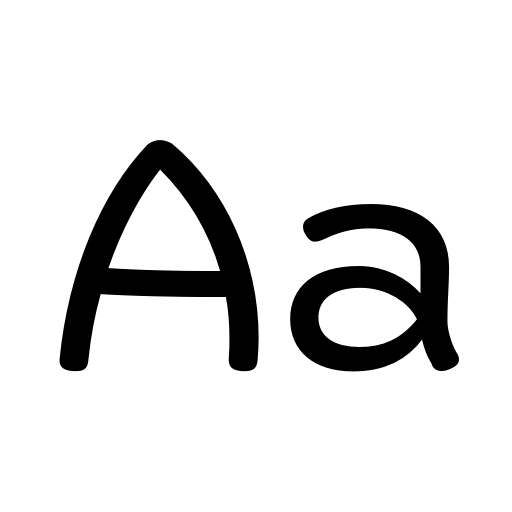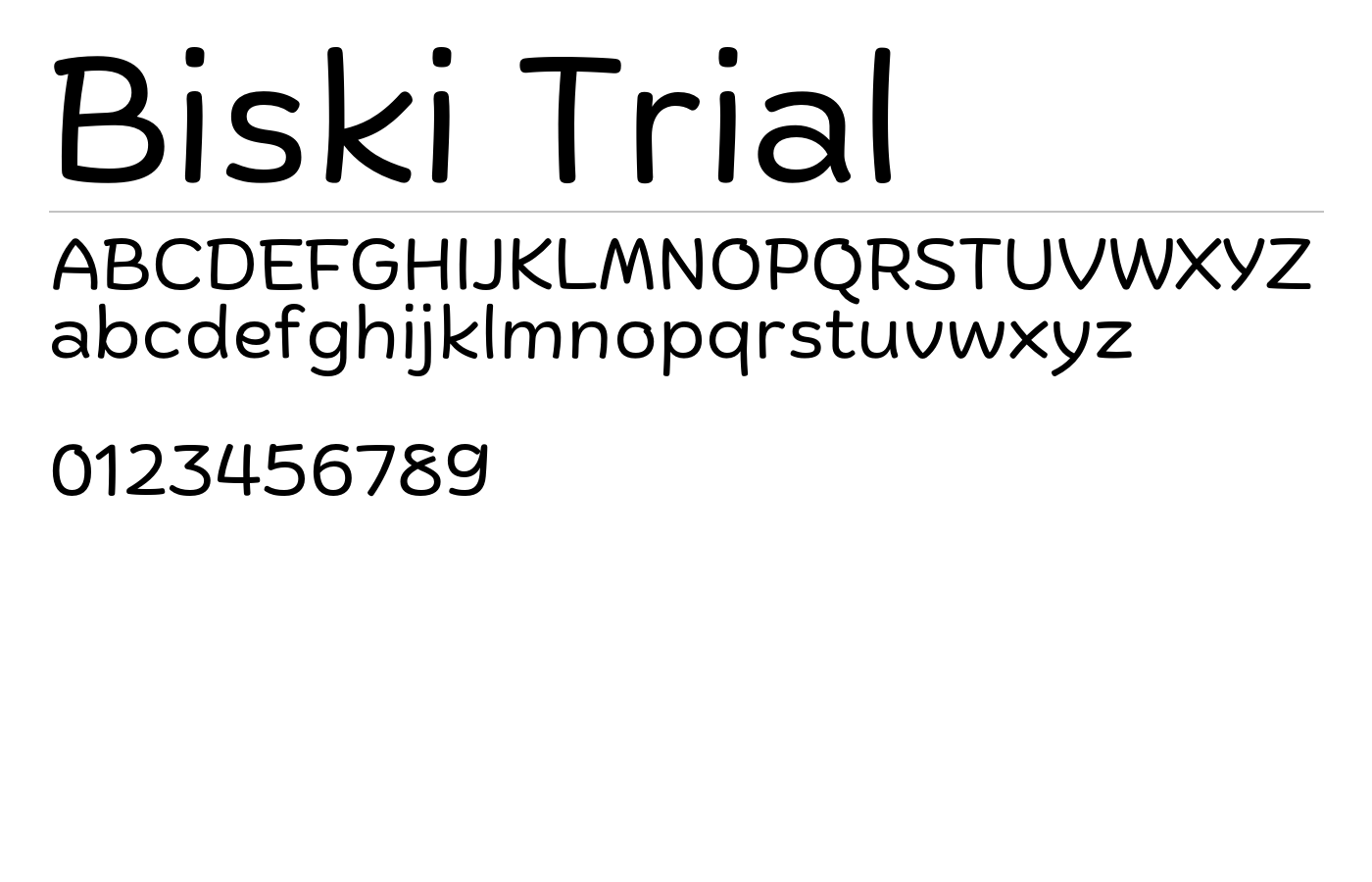
Biski Trial is a casual, sans serif font with a hand-drawn, playful feel. It features irregular stroke widths, slightly curved terminals, and an informal bounce in its letterforms, making it perfect for friendly and approachable designs. This font works well for children's books, creative projects, and informal branding where a warm, personal touch is needed.
Biski Trial Font
About Biski Trial Font
| Font family | Biski Trial Font |
| Designer | Anupap Jaichumnan |